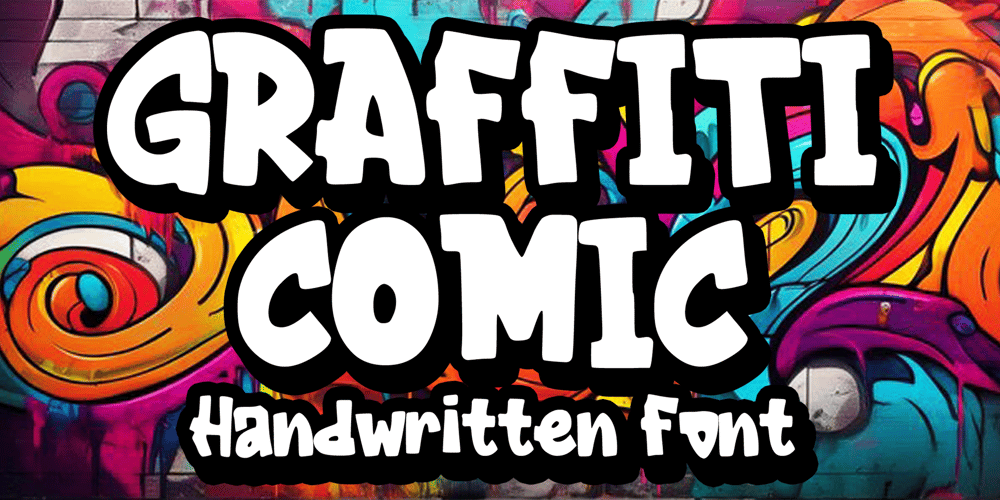
Graffiti Comic
Graffiti Comic font
Graffiti Comic Font Family was designed by Gabriel Valentinus and published by Mvmet. Graffiti Comic contains 1 styles and family package options. Graffiti Comic is a versatile graffiti street style display font, inspired by 90s street graffiti and cartoons. You can use it for anything ranging from t-shirts and clothing, for your book designs, street art needs, greeting cards, stickers, posters, banners, or anything that needs a bold and fun touch. Try it to create fabulous designs and feel the fun and cheering vibes with it!